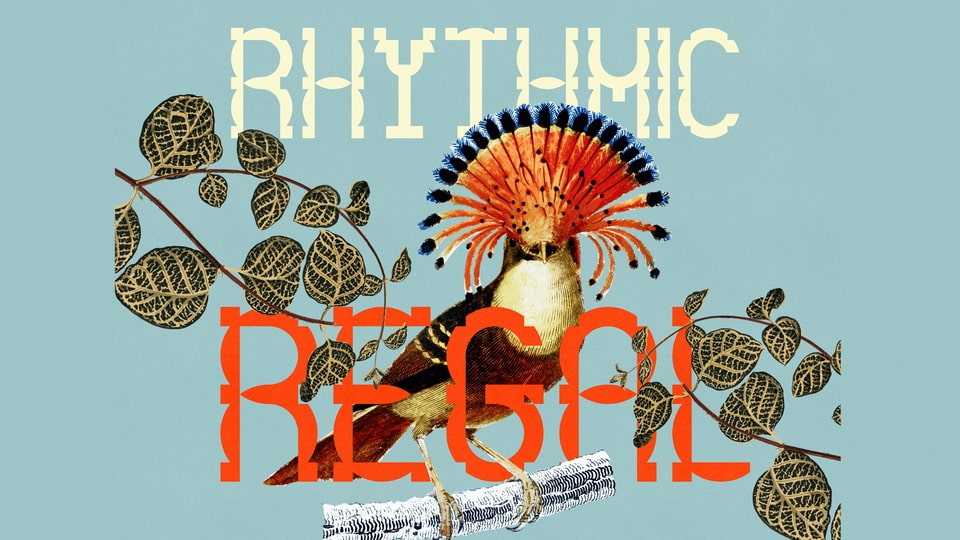
Rhythmic Regal Font › Fontesk – Fonte Grátis
Download Rhythmic Regal font, an ornamental typeface that exudes grandeur and intricacy. Built on a grid, this font offers a striking contrast with its elaborate details and regal presence.